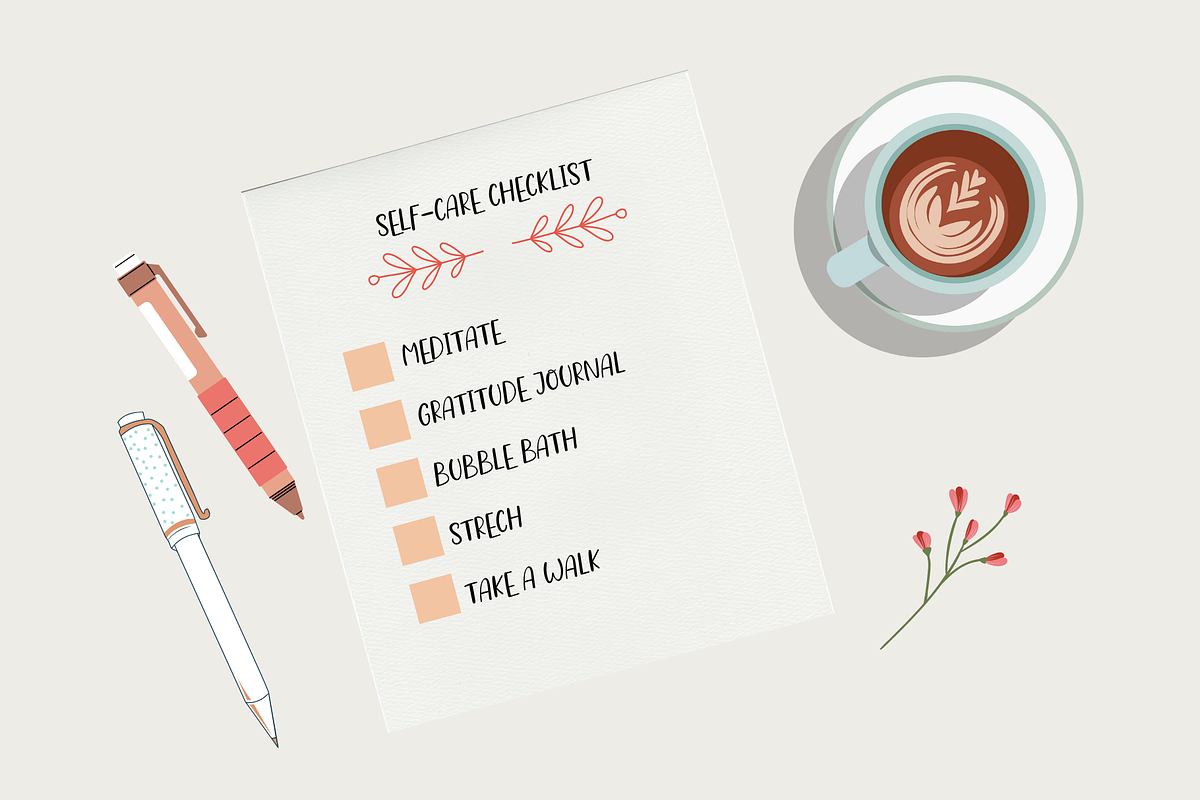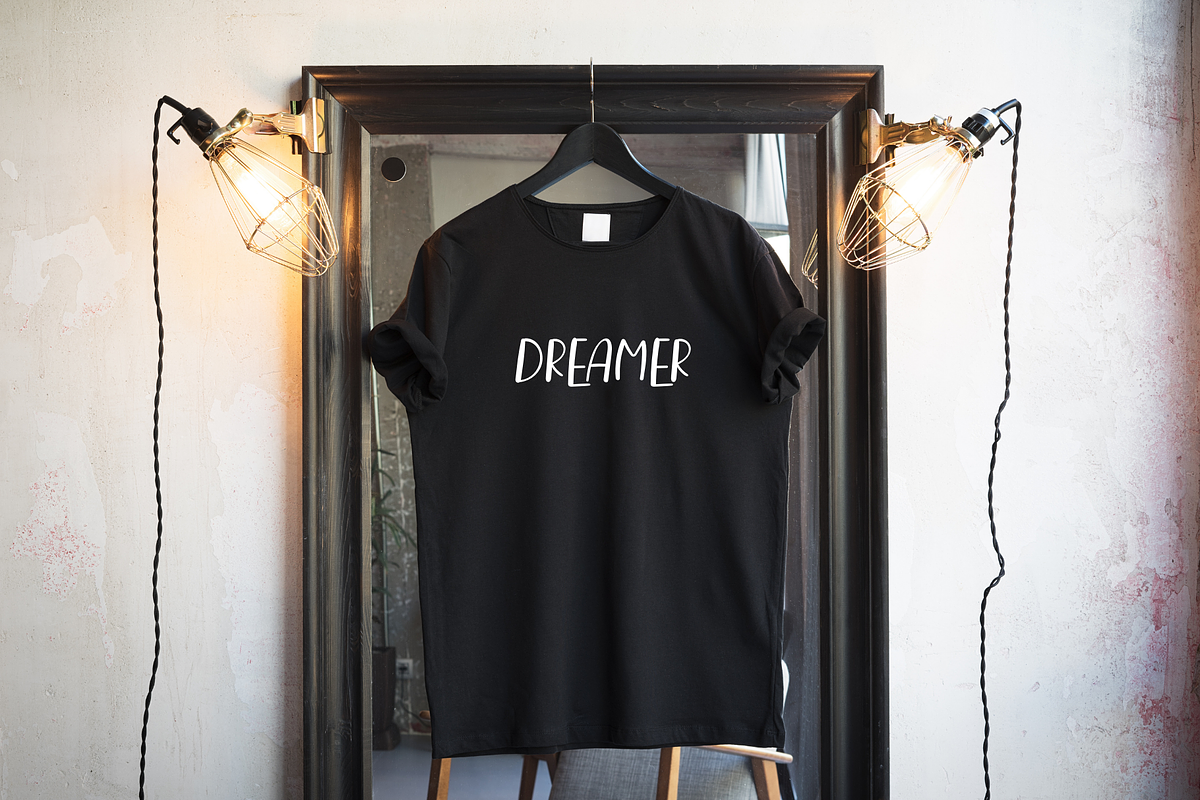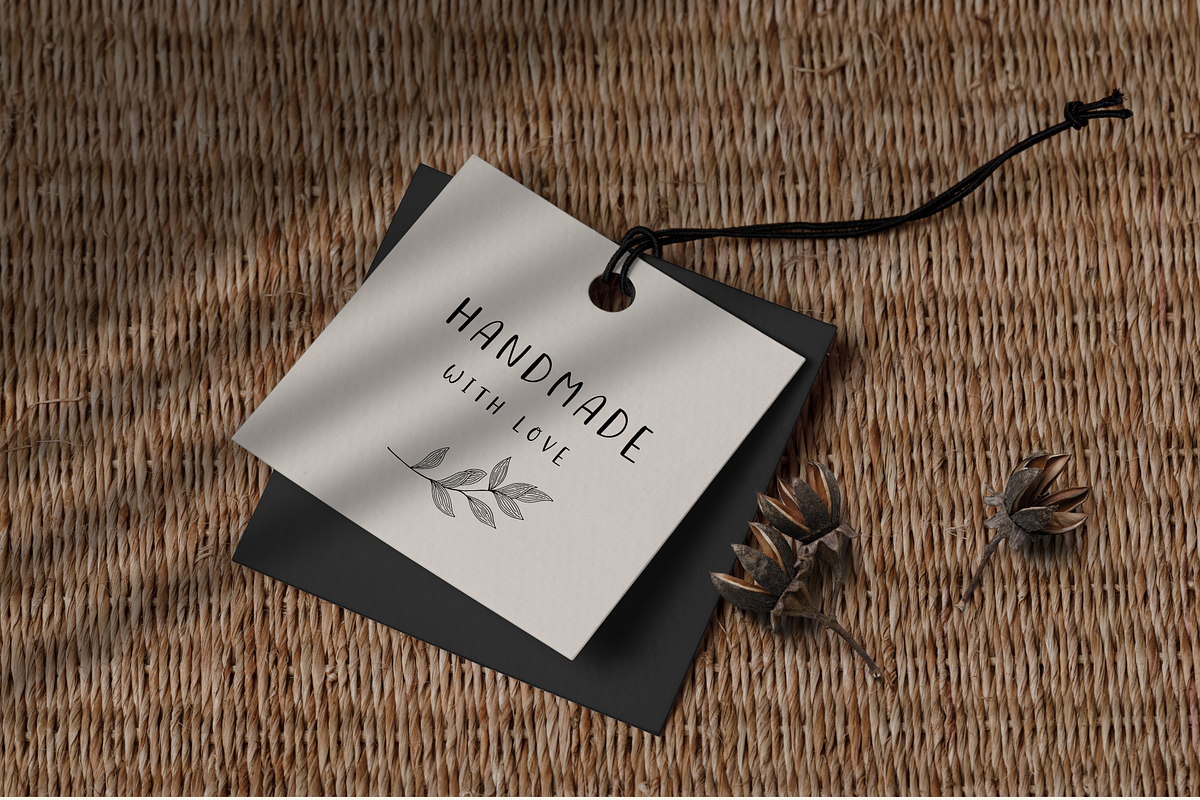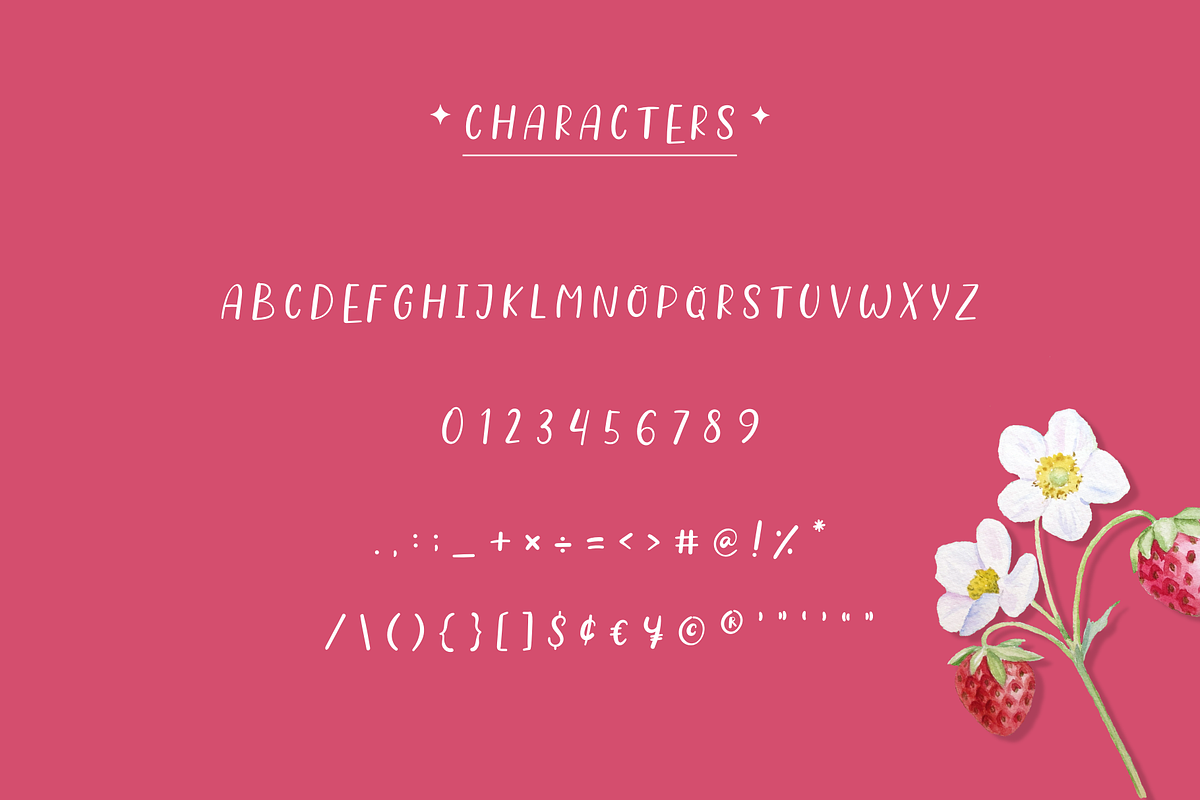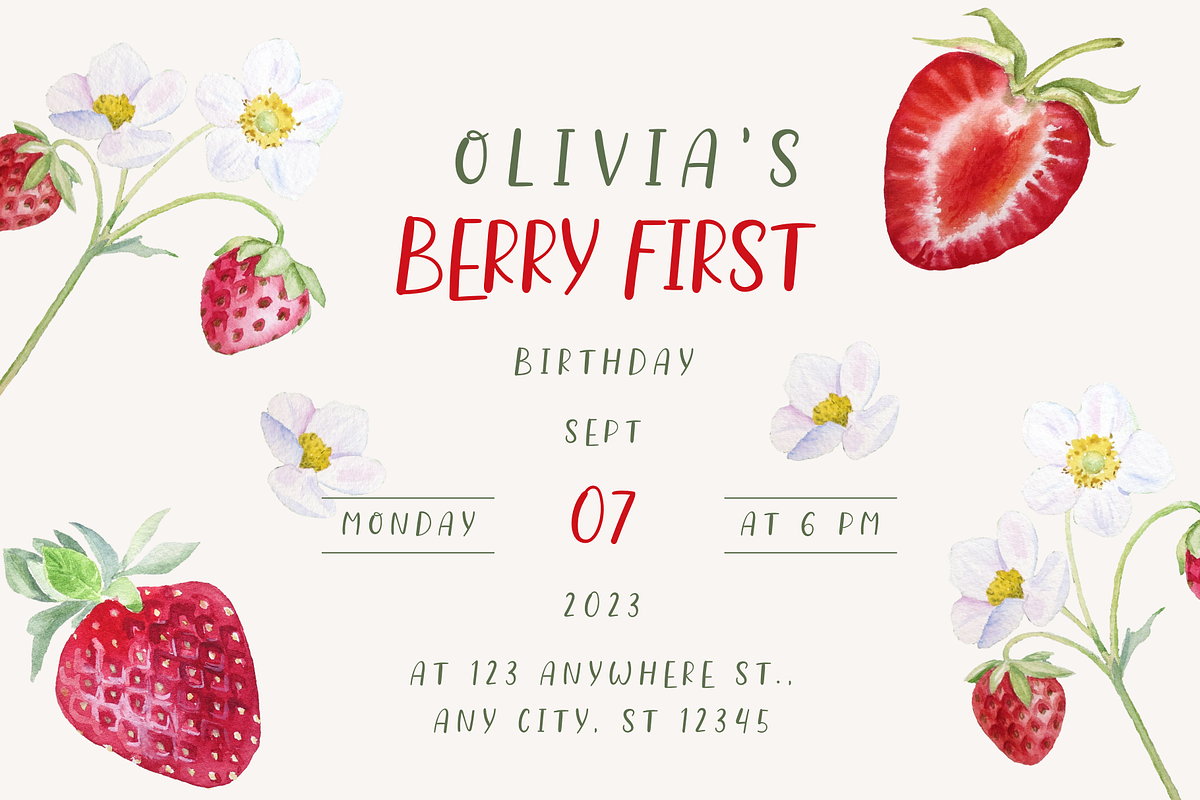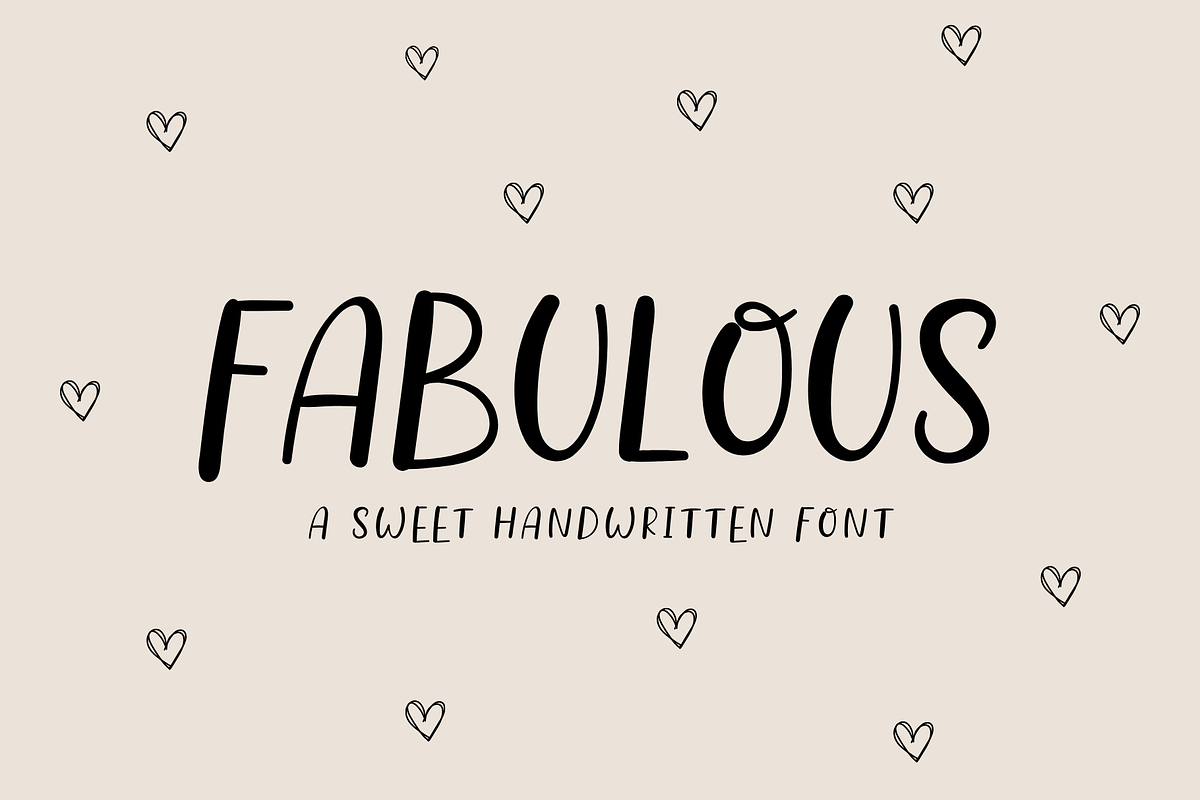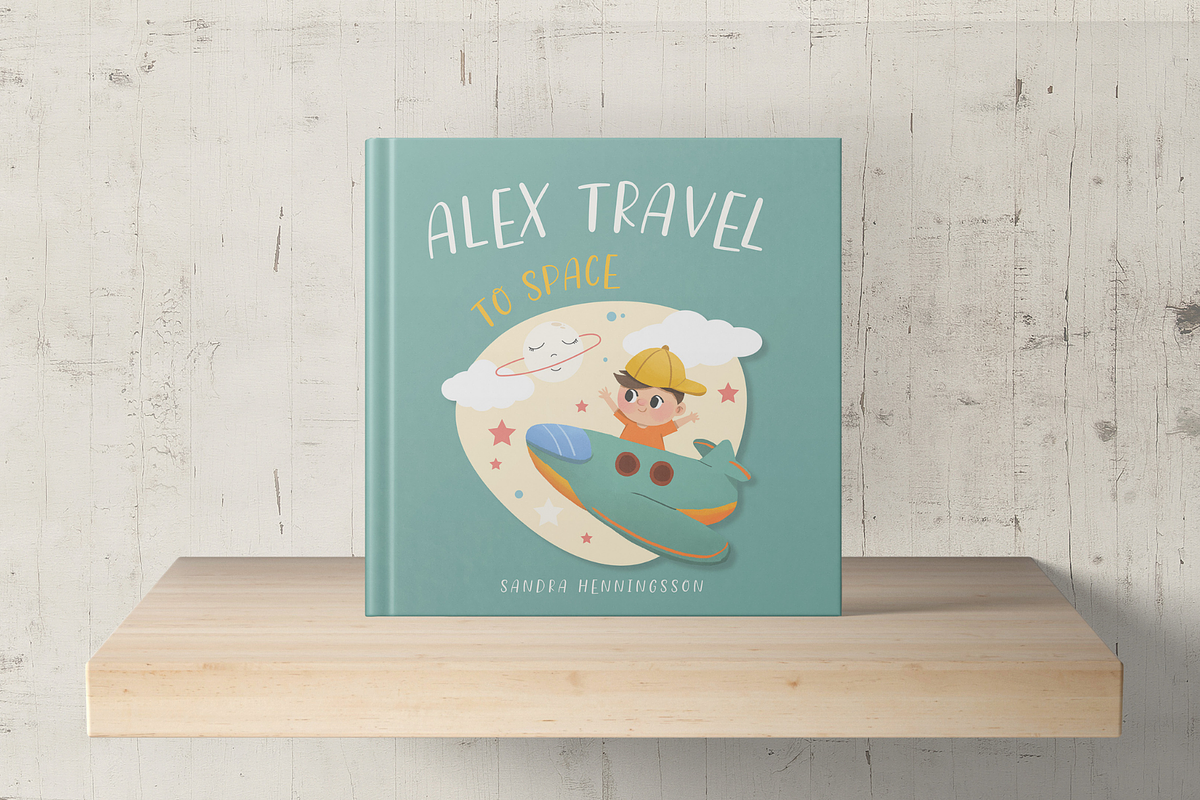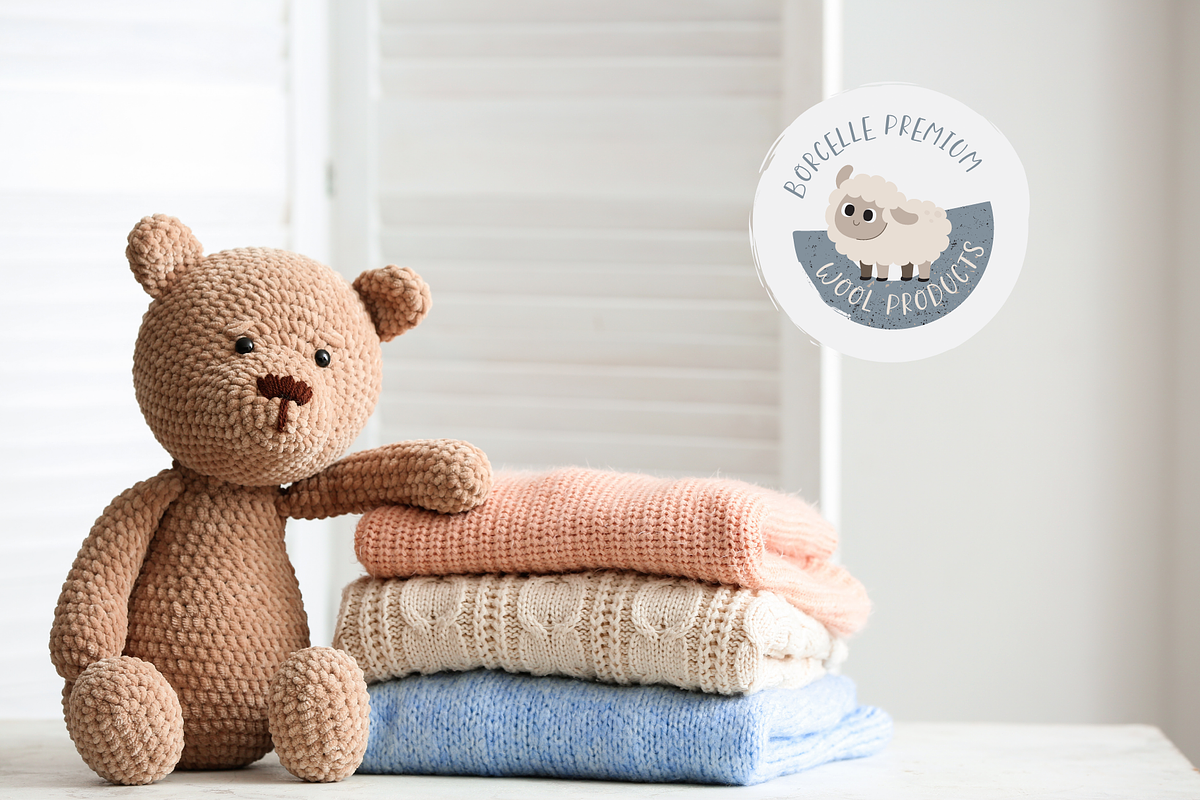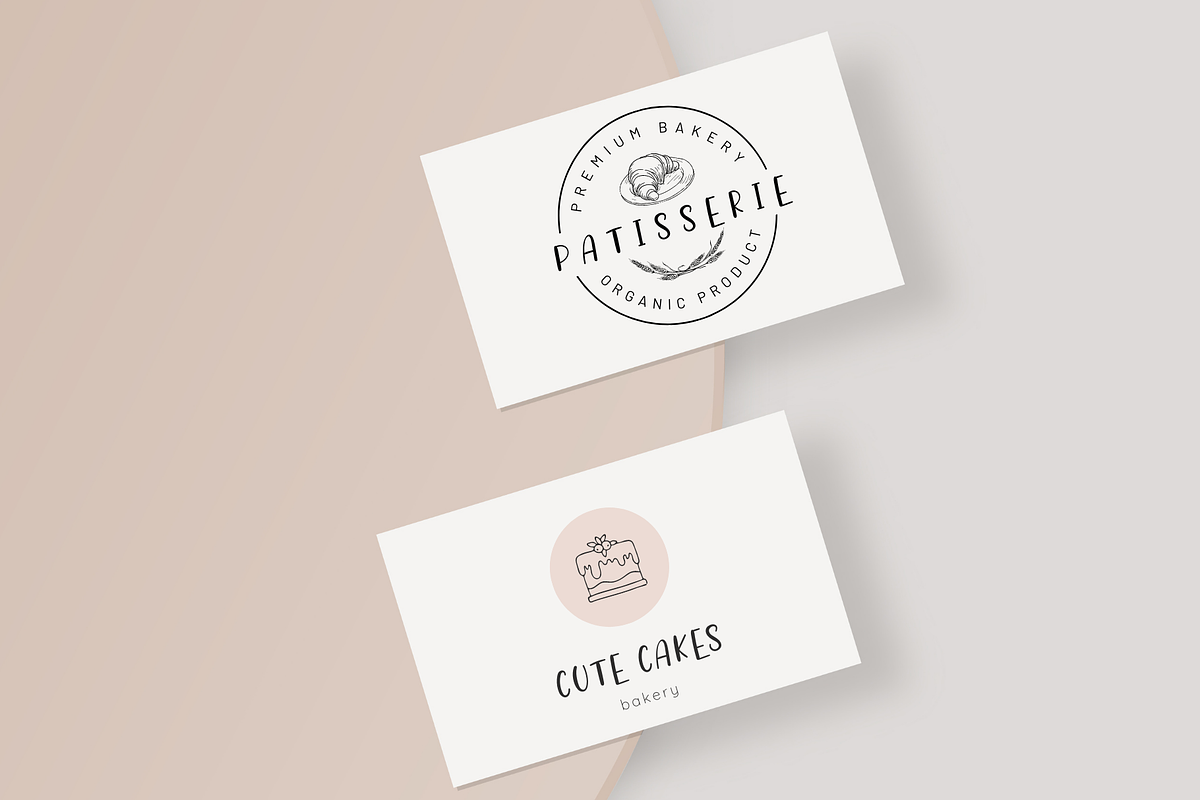
Fabulous Cute Font
Font perfect for logos, branding, notebooks, journals, labels, stickers, blogs, quotes, greeting cards, tea towels, apparel, pillows, mugs, toys, posters, baby clothing, picture books and so much more... basically anything that requires a cute and handwritten look! 😍